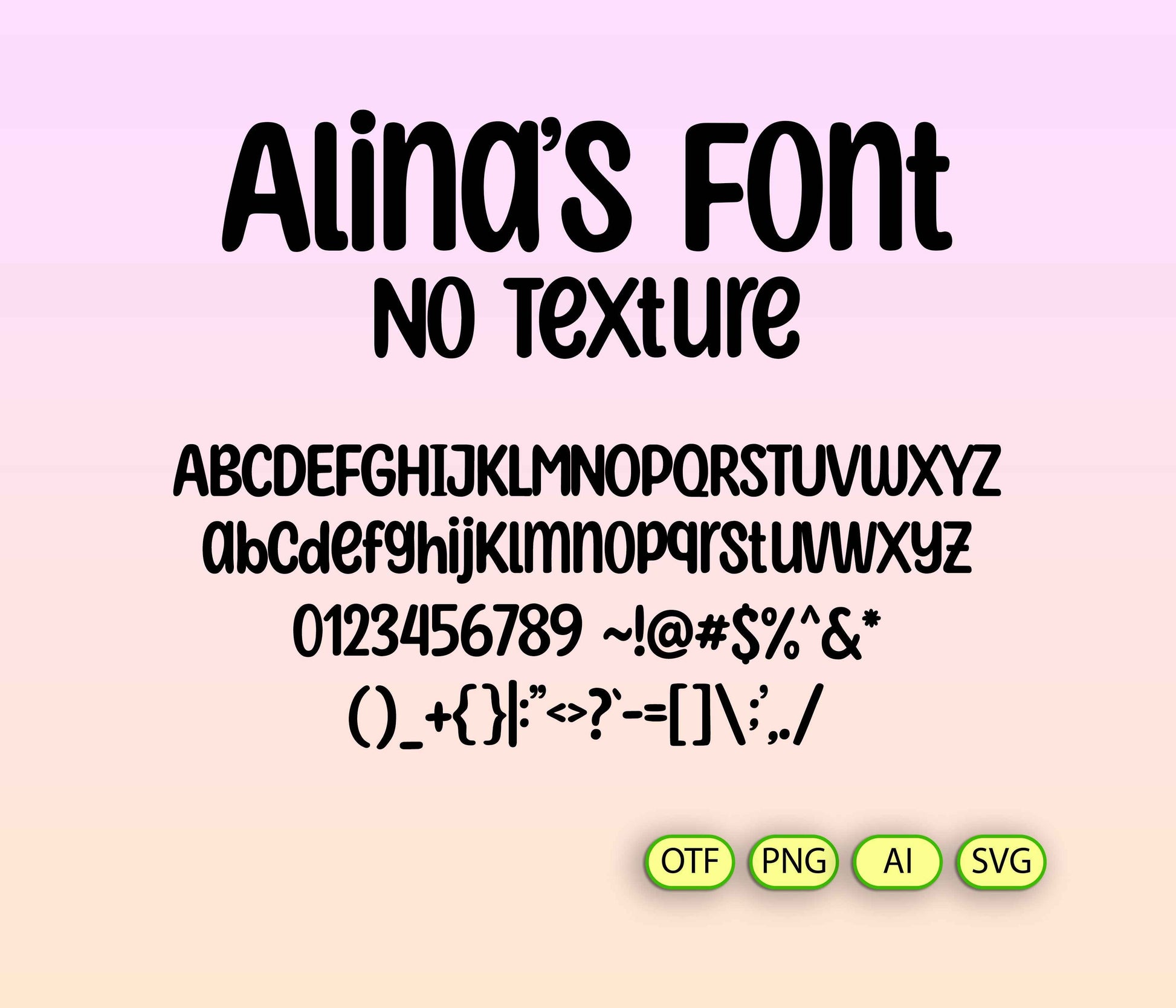
Spring Celebration Font
Step into the world of joyful celebration with our Spring Celebration font, capturing the essence of seasonal renewal and festive gatherings. Perfect for card makers, gift designers, event planners, and digital creators, this clean-lined font brings the cheerful, hopeful spirit of springtime to your projects. Create delightful greetings, themed decorations, or digital content with the playful energy of this special season.
Our Spring Celebration font features smooth, playful lines and cheerful characters in a clean style that reflects the joy of spring festivities. Ideal for:
1. Holiday Crafts: Design crisp, professional cards, gift tags, and basket labels that express seasonal delight.
2. Event Planning: Perfect for clear, elegant egg hunt maps, celebration banners, and spring party decorations.
3. Digital Content: Create sharp, professional social media posts, e-cards, and digital invitations with pristine typography.
4. Craft Projects: Ideal for clean-cut vinyl projects, precise die-cutting, and professional-looking seasonal decor.
5. Commercial Design: Perfect for high-quality spring-themed merchandise, professional promotional materials, or any project requiring that special touch of springtime joy.
Our font pays tribute to the joy of spring festivities, empowering your designs with its refined and cheerful spirit. Whether crafting seasonal messages, designing celebratory merchandise, or adding a playful element to special projects, this clean-lined font communicates the vibrant essence of springtime with professional precision. Ready to create something special for the season? This non-textured font is your key to polished, impactful design.